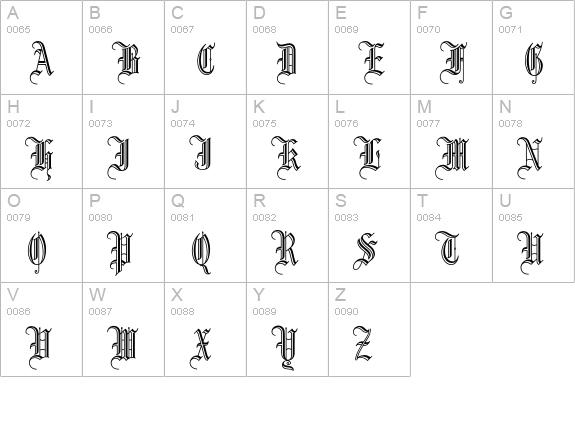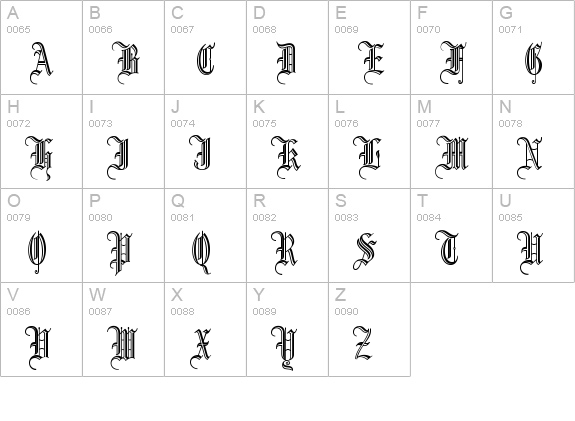
London Text Font Details
London Text font is a stunning and elegant typeface that exudes sophistication and charm. This versatile font features clean lines and a classic design that is perfect for a wide range of projects, from invitations to branding. The timeless appeal of London Text font makes it a popular choice for designers looking to add a touch of class to their creations. What's even better is that London Text font is available for free download at FontsMarket.com. This means you can easily access this exquisite font and elevate your designs without any additional cost. Whether you're working on a personal project or a client's design, London Text font is sure to impress with its timeless elegance and impeccable style. Download it today and start creating beautiful designs with ease.